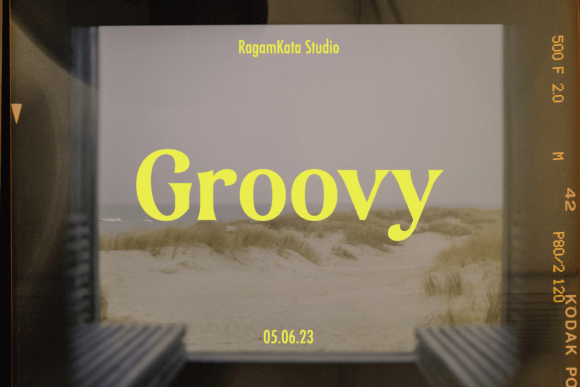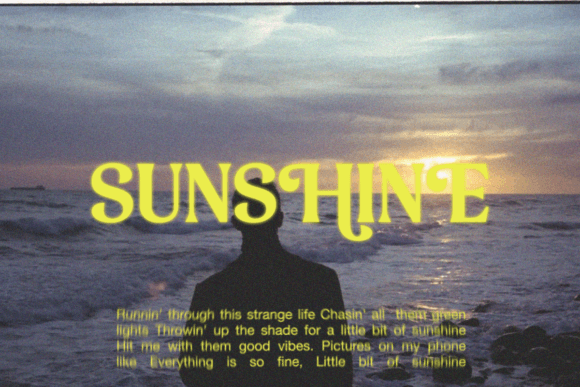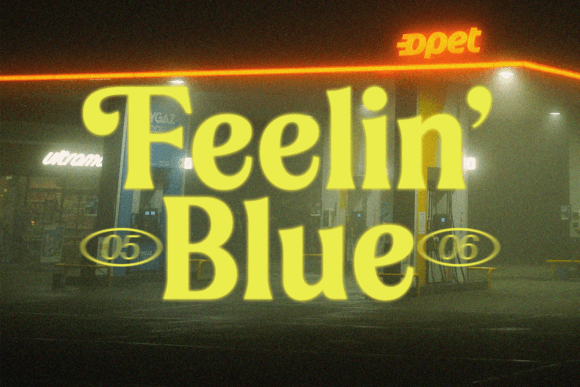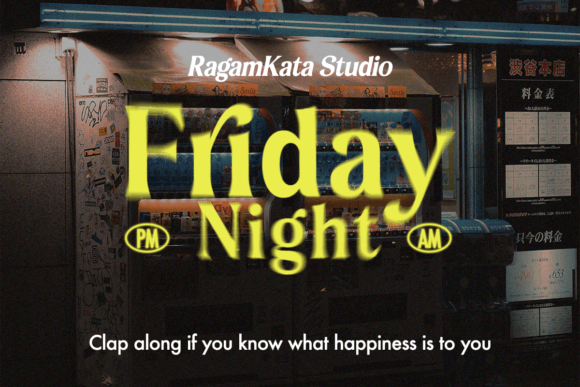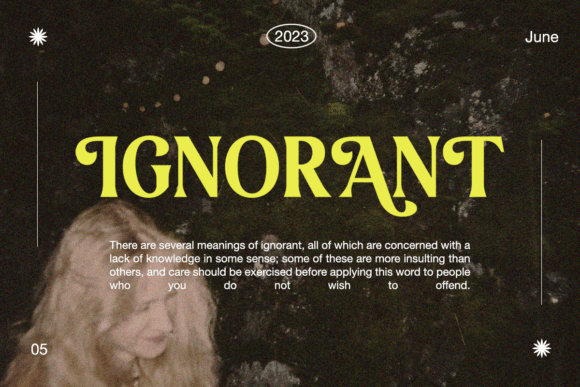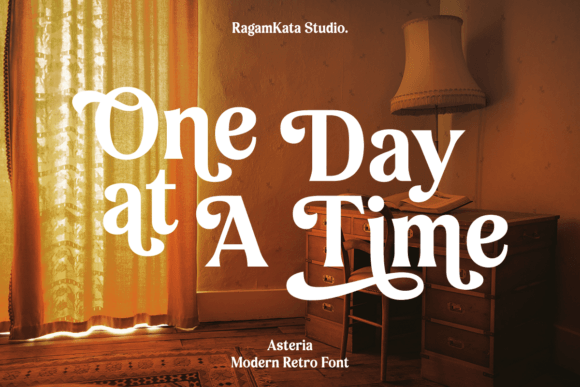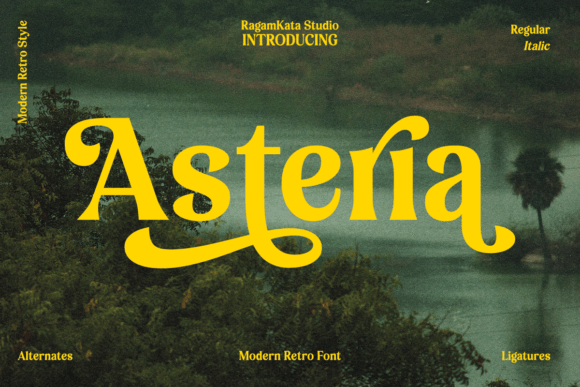
Asteria Font: Elevate Your Designs with a Retro Display Flair
In the realm of typography, fonts play a pivotal role in conveying messages, evoking emotions, and setting the tone for various design projects. Among the myriad of fonts available, the Asteria Font stands out as a versatile and stylish retro display font. Ideal for designers and crafters looking to infuse a vintage charm into their creations, Asteria is perfect for a wide range of applications, from magazine titles and posters to logos, t-shirts, and more.
Unleashing the Power of Asteria Font
Asteria is not just another font; it’s a design statement. Its retro display characteristics make it an excellent choice for projects that require a touch of nostalgia, sophistication, and elegance. Whether you’re working on a magazine title, a poster, or a logo, Asteria’s unique style ensures that your design stands out from the crowd. Its versatility extends to various mediums, including digital platforms like Instagram story posts, greeting cards, and quotes, making it a go-to font for creatives.
Key Features of Asteria Font
• Retro Display Style: Asteria boasts a distinctive retro aesthetic that adds a vintage flair to any design.
• Versatility: Suitable for a wide range of projects including magazine titles, posters, logos, t-shirts, sub titles, business cards, magazines, book covers, wedding invitations, and more.
• Digital Compatibility: Seamlessly integrates into digital platforms, perfect for Instagram story posts, social media graphics, and e-cards.
• Elegance and Sophistication: Adds a touch of elegance and sophistication, making it ideal for designs that require a classy look.
Applications of Asteria Font
The applications of Asteria Font are vast and varied. Here are some of the most popular uses:
• Magazine Titles and Posters: Create eye-catching headlines and titles that grab attention.
• Logos and Branding: Establish a strong brand identity with a unique and memorable logo.
• T-Shirts and Merchandise: Design stylish and trendy apparel that stands out.
• Wedding Invitations and Greeting Cards: Add a touch of elegance and sophistication to special occasions.
• Instagram Story Posts and Social Media Graphics: Elevate your digital content with stylish and engaging typography.
Why Choose Asteria Font?
In a world where design trends are constantly evolving, Asteria Font offers a timeless appeal that can enhance any project. Its unique blend of retro charm and modern versatility makes it an invaluable asset for designers and crafters. By choosing Asteria, you’re not just selecting a font; you’re embracing a design philosophy that values creativity, elegance, and impact.
Tips for Using Asteria Font Effectively
• Experiment with Sizes and Colors: Play around with different sizes and colors to maximize the impact of Asteria.
• Combine with Other Fonts: Pair Asteria with complementary fonts to create visually appealing contrasts.
• Consider the Context: Tailor your use of Asteria to fit the specific needs and tone of your project.
Asteria Font is more than just a typeface; it’s a creative tool that can elevate your designs to new heights. With its retro display style, versatility, and elegance, Asteria is poised to become a favorite among designers and crafters. Whether you’re working on a commercial project or a personal craft, Asteria Font offers the perfect blend of style and functionality to make your designs shine.